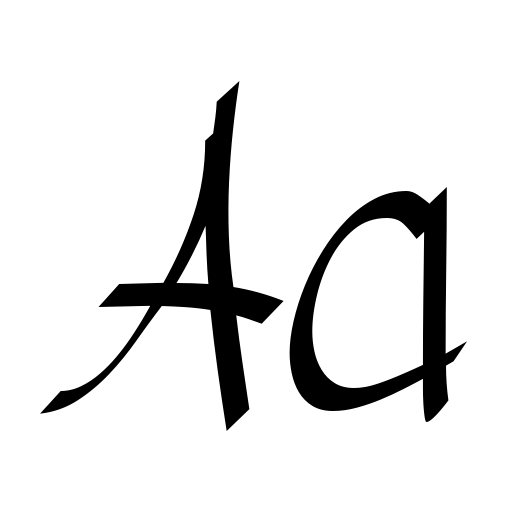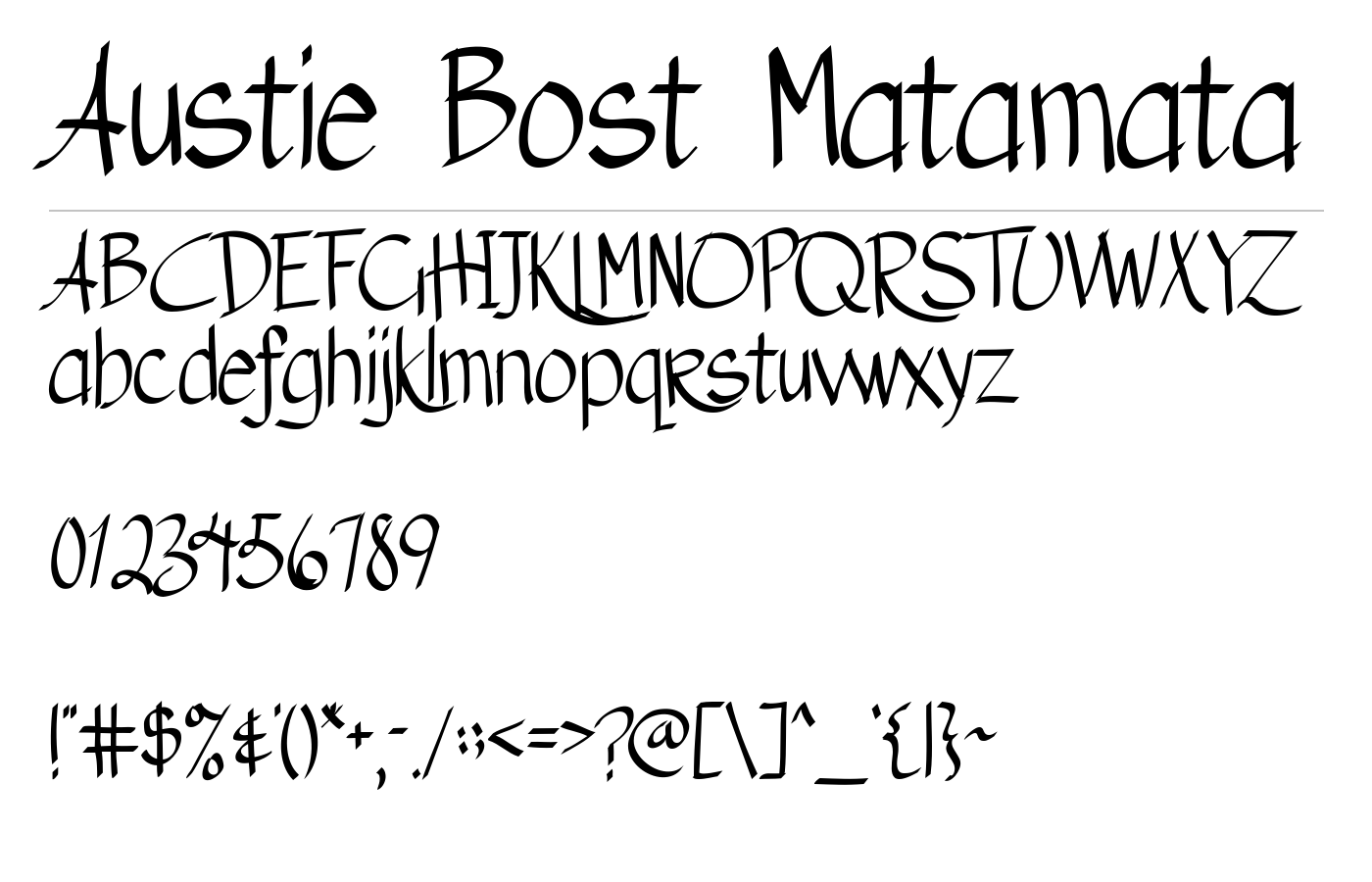
Austie Bost Matamata is a playful and artistic serif font characterized by its unique, hand-drawn style with thin, slightly irregular strokes and whimsical curves. Its narrow proportions and distinctive letterforms give it a casual yet expressive feel, making it ideal for creative projects, logos, and headlines that seek a quirky, friendly personality. This font works best where a personal, informal touch is desired, adding charm and individuality to branding and design.
Austie Bost Matamata Font
About Austie Bost Matamata Font
| Font family | Austie Bost Matamata Font |
| Designer | Austin Owens |